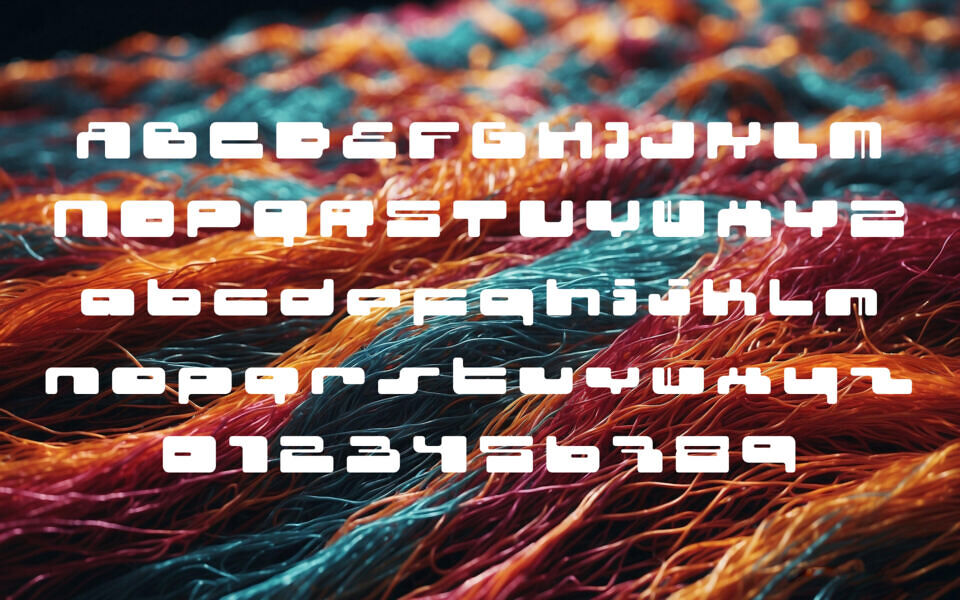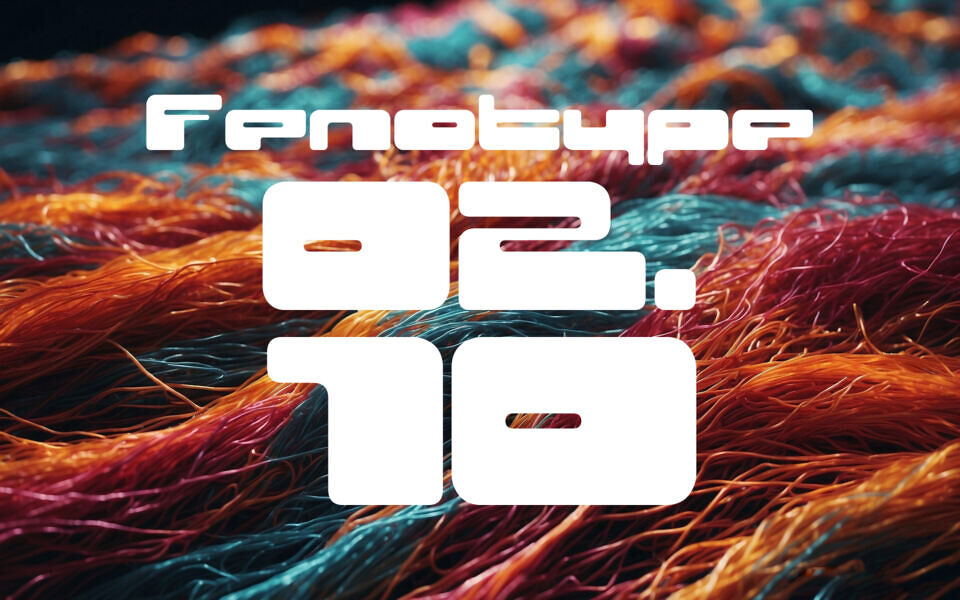
02.10 is a distinctly modern and futuristic display typeface by Fenotype. It’s characterized by its bold, blocky letterforms, softened by rounded corners and featuring unique stencil-like gaps. This design choice gives it a high-tech and impactful aesthetic.
The font includes both uppercase and lowercase letters, as well as a complete set of numbers. Its strong, geometric, and eye-catching style makes it an excellent choice for headlines, logos, posters, and any design project aiming for a contemporary and technological feel.
Includes Regular and Italic.